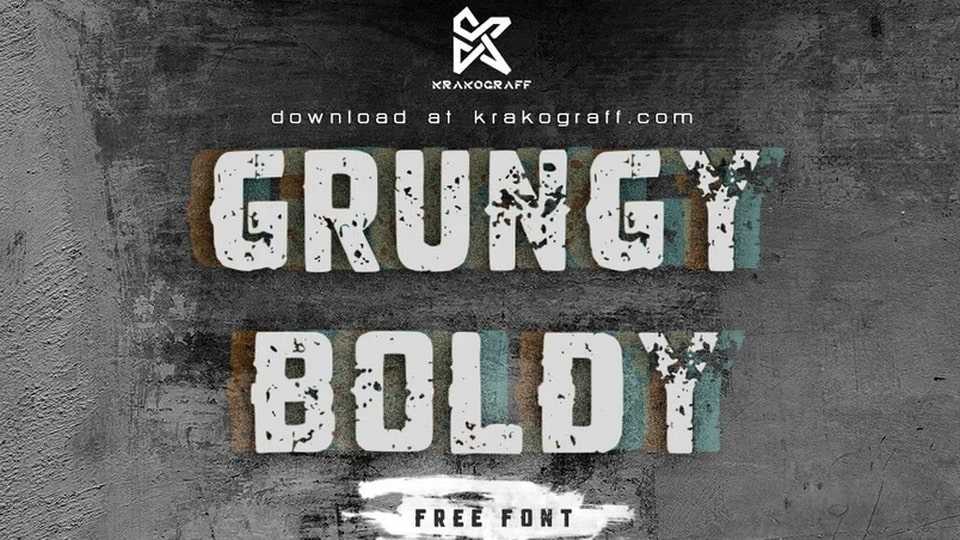
Download Grungy Boldy font, a display typeface that’s both gritty and bold to inject some urban flair into your projects or to experiment with edgy typography.
Designer: Krakograff